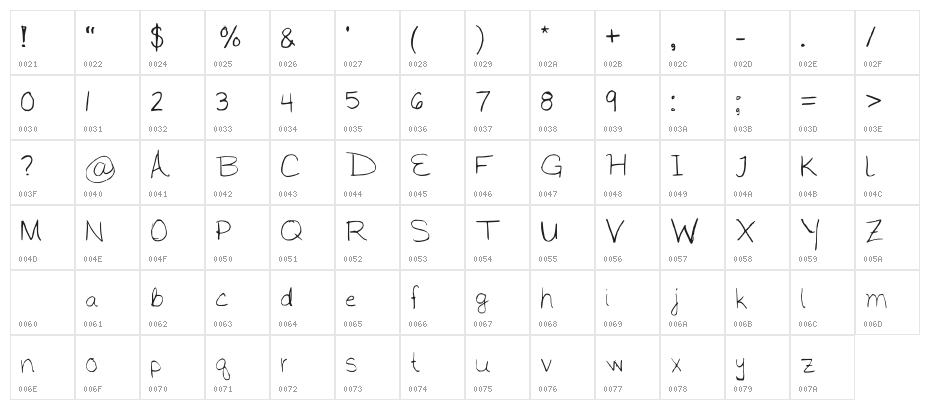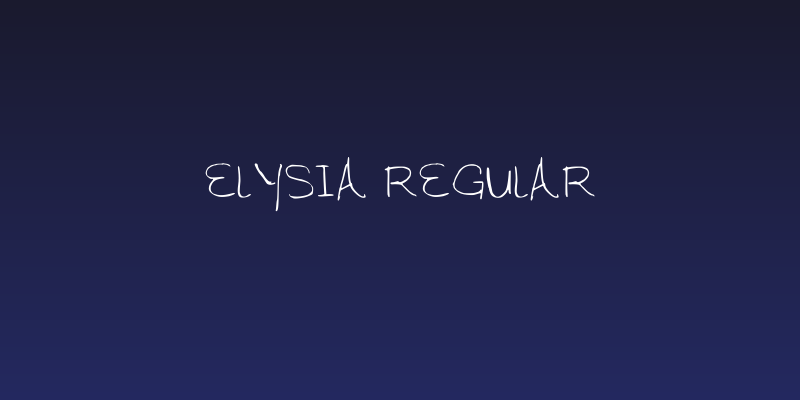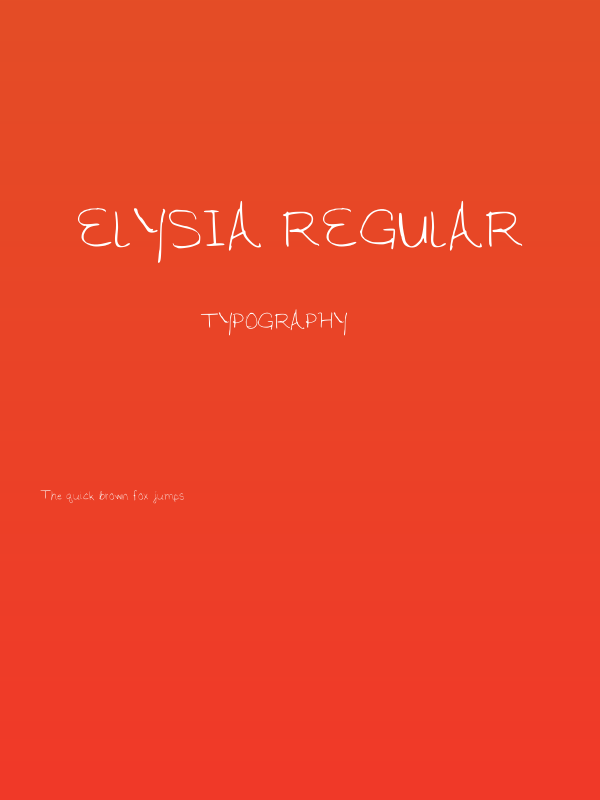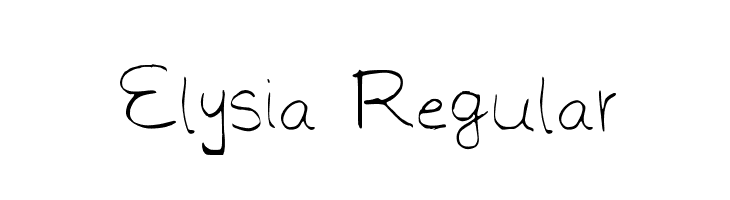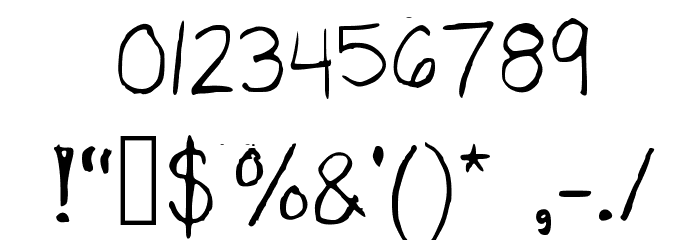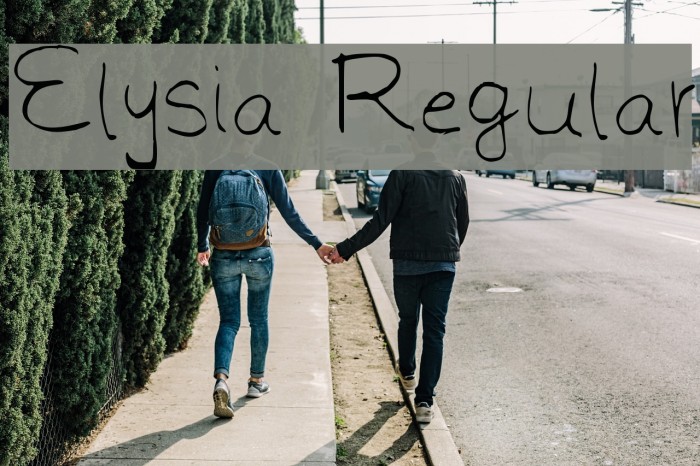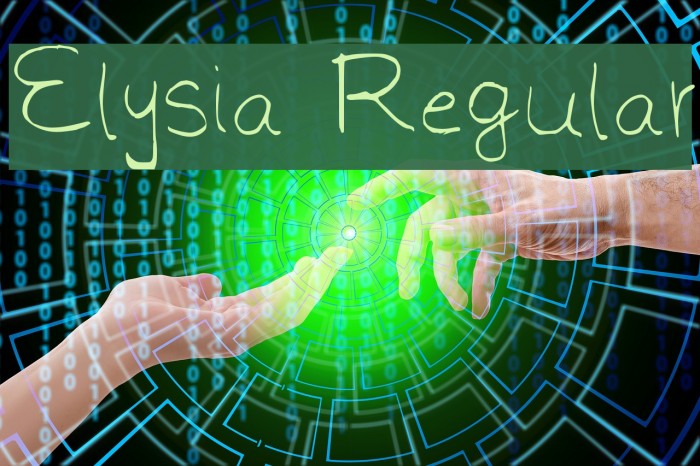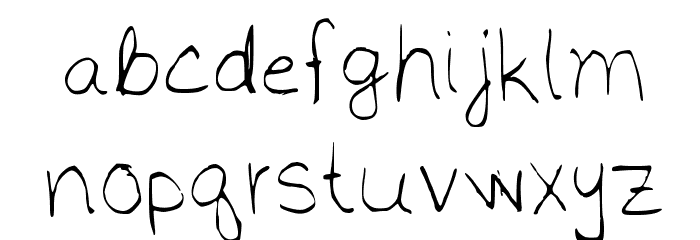
Elysia Regular Font
Elysia Regular Description
This font features a playful and informal handwritten style, characterized by its irregular strokes and casual appearance. The letters have a slightly uneven baseline, giving them a dynamic and lively feel. The uppercase letters are bold and prominent, while the lowercase letters maintain a consistent flow with a touch of whimsy. Numbers and special characters follow the same playful aesthetic, making the font suitable for creative and informal projects. The overall design is approachable and friendly, perfect for adding a personal touch to any text.
| Proposed Projects | Ideal for greeting cards, children's books, casual invitations, and creative branding projects. |